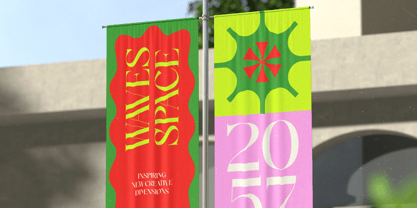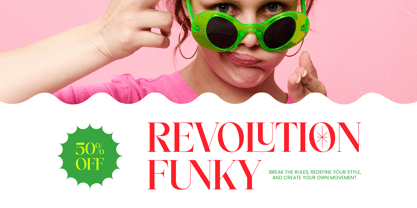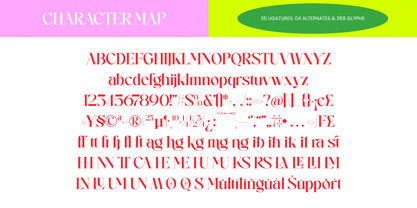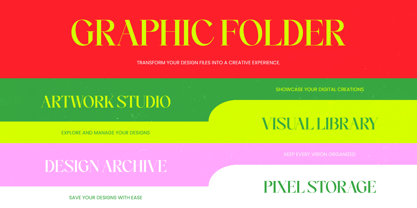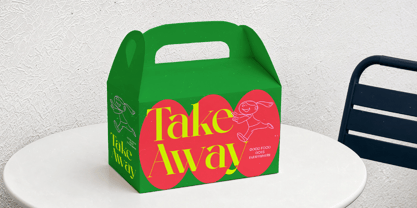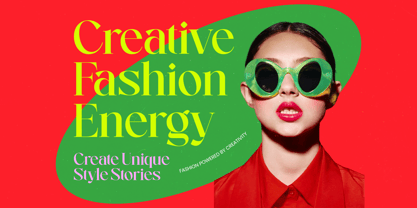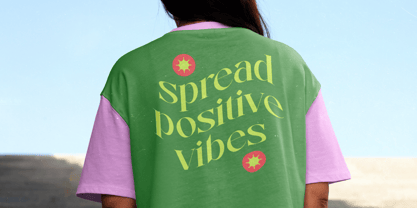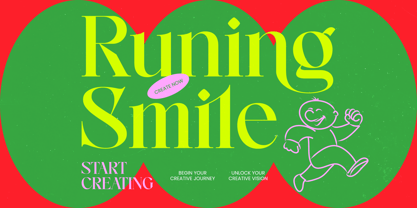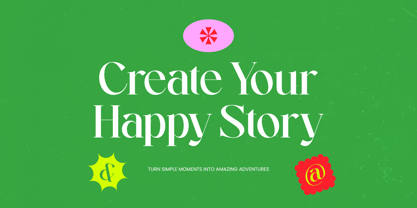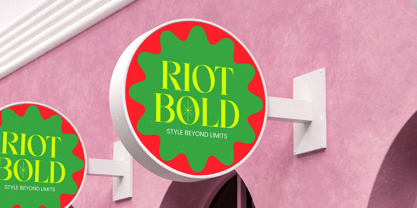
Runing Smile
by Timelesstype Studio
The Runing Smile Font Family was designed by Heru Utama Putra and published by Timelesstype Studio. Runing Smile contains 2 styles and family package options. More about this family
Elevate your design projects with the striking elegance of Runing Smile - Serif Display. This high-contrast serif typeface combines classic sophistication with a contemporary edge. Its bold letterforms and sharp serifs create a commanding visual presence that demands attention. Runing Smile - Serif Display is meticulously crafted for designers who seek a balance between timeless tradition and modern flair, making it an essential addition to any creative toolkit.